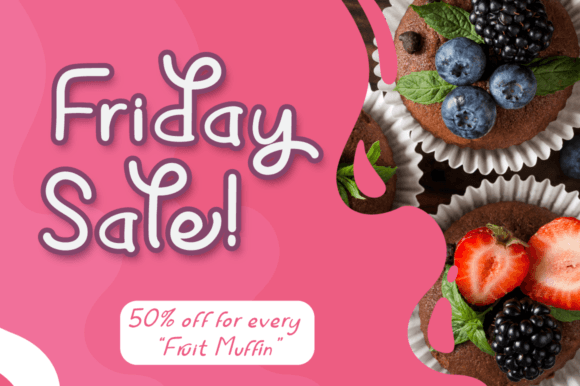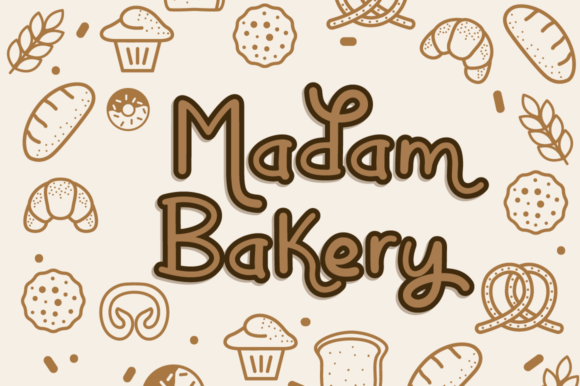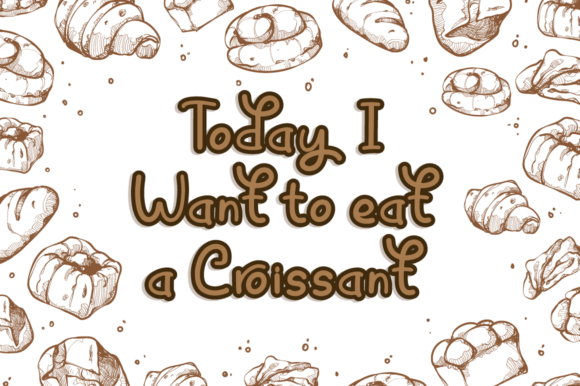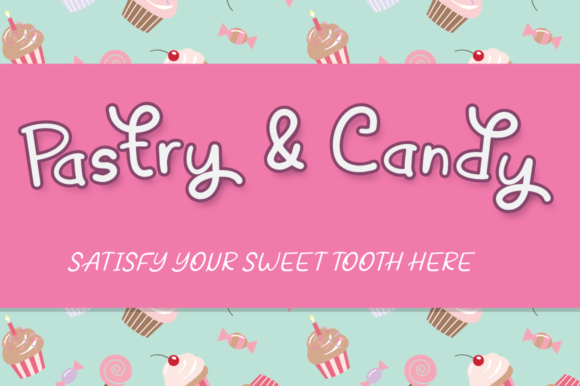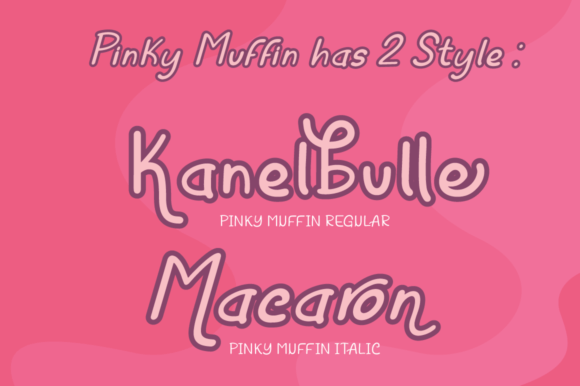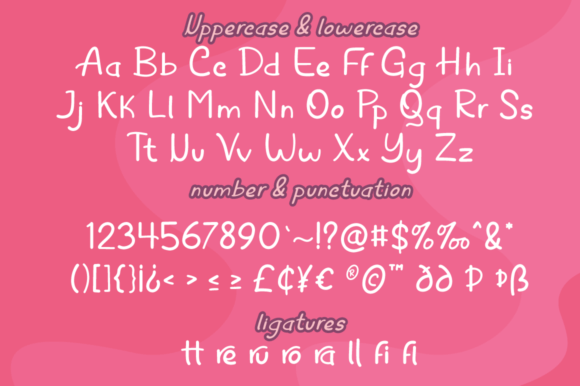
Introduction to Pinky Muffin Font
Pinky Muffin font is a quirky and playful typeface perfect for food promotion designs.
Whether youโre creating a menu, poster, or social media graphics, Pinky Muffin is sure to make your content stand out with its lighthearted and professional tone .
Key Features of Pinky Muffin Font
Why Choose Pinky Muffin Font?
Pinky Muffin Font offers exceptional quality and versatility, making it a valuable addition to your design toolkit. Whether you’re creating for personal projects or commercial use, Pinky Muffin Font delivers professional results.